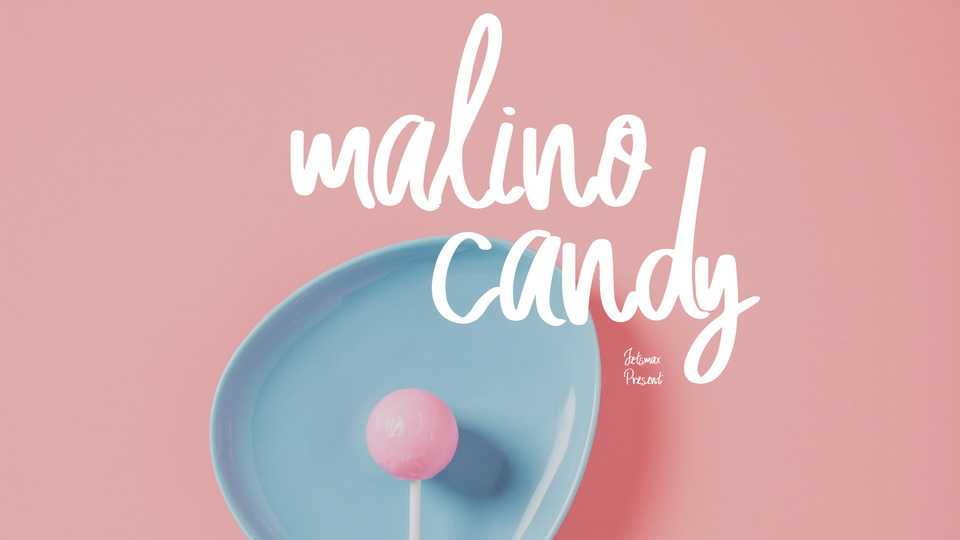
Download Malino Candy font, a handwritten typeface with sweet and lovely theme. With its beautiful and elegant curve, this font will make both your design stand out even more.
Designer: Jetsmax Studio